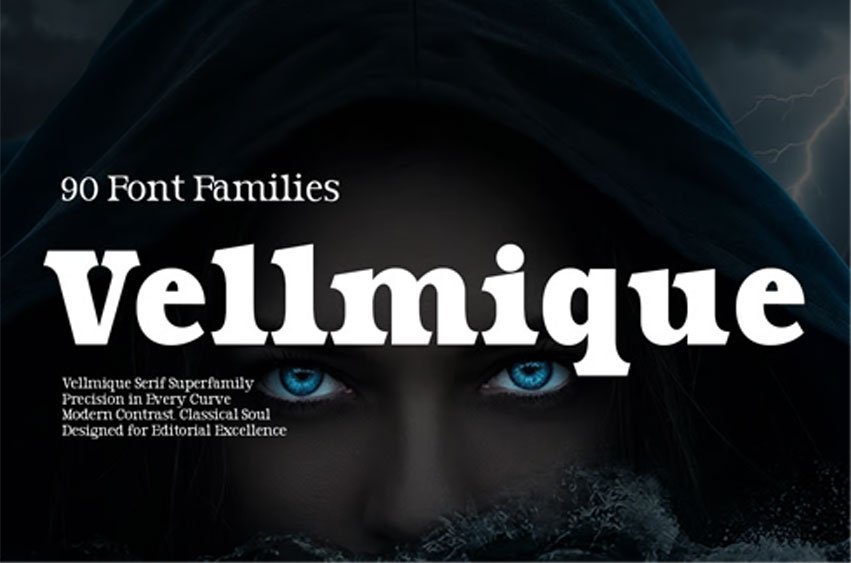
Vellmique Font is a refined contemporary serif superfamily designed for high–end editorial, luxury branding, and expressive typography. Built with precision contrast, sculpted serifs, and confident proportions, Vellmique balances classical elegance with modern clarity.
With 90 styles including upright , Vellmique offers an extensive range from delicate Thin to commanding Black, across nine width categories — delivering maximum versatility for branding systems, publishing, packaging, and large–scale typography.
Ultra Condensed File Included: upright files Thin. TTF. OTF – ExtraLight. TTF. OTF – Ultra Condensed. TTF. OTF – Medium. TTF. OTF – SemiBold. TTF. OTF – ExtraBold. TTF. OTF – Black. TTF. OTF – ExtraBlack. TTF. OTF The Ultra Condensed styles are bold, vertical, and space-efficient. Designed for dramatic headlines and impactful titles, this width delivers intensity without sacrificing elegance. Perfect for magazine covers, posters, and luxury branding that demands presence in tight spaces.
Extra Condensed File Included: upright files Thin. TTF. OTF – ExtraLight. TTF. OTF – Extra Condensed. TTF. OTF – Medium. TTF. OTF – SemiBold. TTF. OTF – ExtraBold. TTF. OTF – Black. TTF. OTF – ExtraBlack. TTF. OTF Extra Condensed offers strong vertical emphasis while maintaining improved readability. It retains Vellmique’s refined serif details in a compact form, making it ideal for bold editorial layouts and branding systems requiring narrow typography with character.
Condensed File Included: upright files Thin. TTF. OTF – ExtraLight. TTF. OTF – Condensed. TTF. OTF – Medium. TTF. OTF – SemiBold. TTF. OTF – ExtraBold. TTF. OTF – Black. TTF. OTF – ExtraBlack. TTF. OTF The Condensed styles provide a balanced narrow proportion with enhanced legibility. This width works beautifully in editorial columns and modern branding where space control is essential without looking compressed.
Semi Condensed File Included: upright files Thin. TTF. OTF – ExtraLight. TTF. OTF – Semi Condensed. TTF. OTF – Medium. TTF. OTF – SemiBold. TTF. OTF – ExtraBold. TTF. OTF – Black. TTF. OTF – ExtraBlack. TTF. OTF Semi Condensed acts as a bridge between narrow and standard proportions. It offers versatility, making it suitable for both display and medium-length texts while maintaining a refined, contemporary tone.
Normal File Included: upright files Thin. TTF. OTF – ExtraLight. TTF. OTF – Regular. TTF. OTF – Medium. TTF. OTF – SemiBold. TTF. OTF – ExtraBold. TTF. OTF – Black. TTF. OTF – ExtraBlack. TTF. OTF The Normal width represents the core of Vellmique’s design philosophy — balanced, elegant, and highly readable. Its classic proportions make it ideal for body text, sophisticated branding, and long-form content.
Semi Expanded File Included: upright files Thin. TTF. OTF – ExtraLight. TTF. OTF – Semi Expanded. TTF. OTF – Medium. TTF. OTF – SemiBold. TTF. OTF – ExtraBold. TTF. OTF – Black. TTF. OTF – ExtraBlack. TTF. OTF Semi Expanded introduces more openness and air into the letterforms. It enhances clarity and sophistication, creating a premium feel suitable for upscale branding and fashion editorials.
Expanded File Included: upright files Thin. TTF. OTF – ExtraLight. TTF. OTF – Expanded. TTF. OTF – Medium. TTF. OTF – SemiBold. TTF. OTF – ExtraBold. TTF. OTF – Black. TTF. OTF – ExtraBlack. TTF. OTF Expanded styles emphasize horizontal presence and visual confidence. With generous spacing and proportion, this width brings a cinematic and luxurious impression.
Extra Expanded File Included: upright files Thin. TTF. OTF – ExtraLight. TTF. OTF – Extra Expanded. TTF. OTF – Medium. TTF. OTF – SemiBold. TTF. OTF – ExtraBold. TTF. OTF – Black. TTF. OTF – ExtraBlack. TTF. OTF Extra Expanded delivers striking visual drama with wide proportions and strong personality. It is expressive and contemporary, ideal for distinctive identity systems.
Ultra Expanded File Included: upright files Thin. TTF. OTF – ExtraLight. TTF. OTF – Ultra Expanded. TTF. OTF – Medium. TTF. OTF – SemiBold. TTF. OTF – ExtraBold. TTF. OTF – Black. TTF. OTF – ExtraBlack. TTF. OTF Ultra Expanded is the most expressive and spatially generous width in the Vellmique family. Designed for bold creative direction, it creates monumental typography with unmistakable presence.